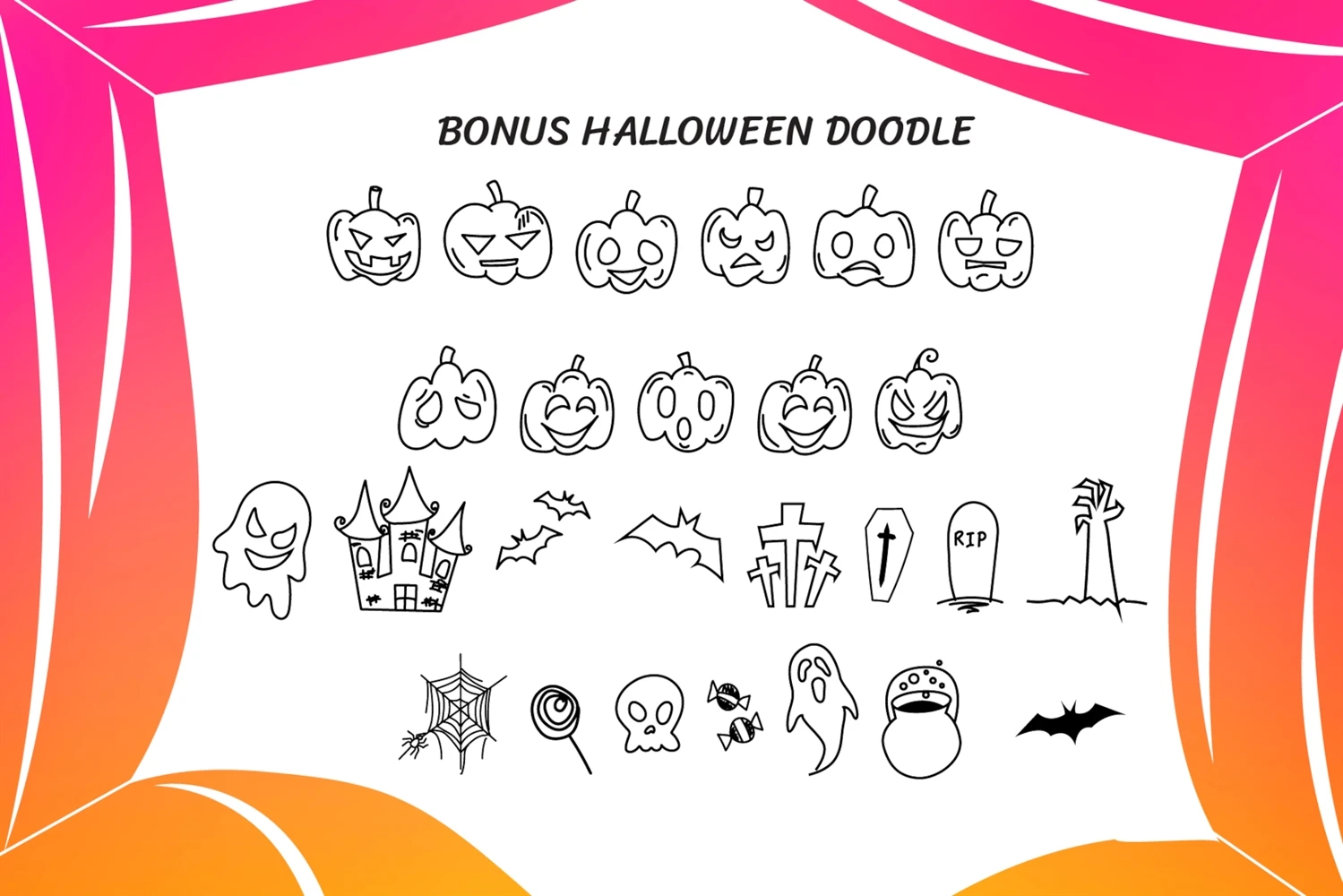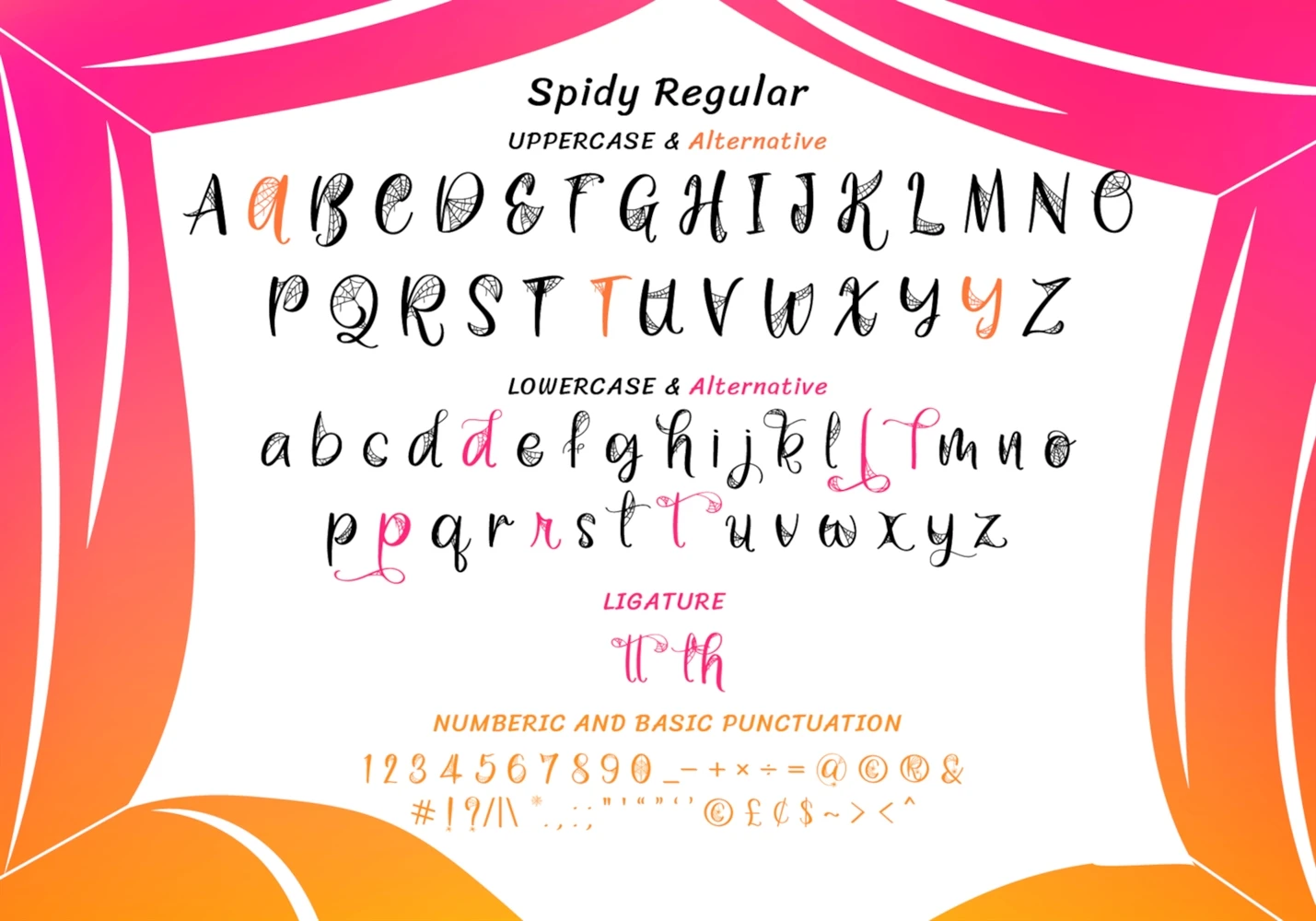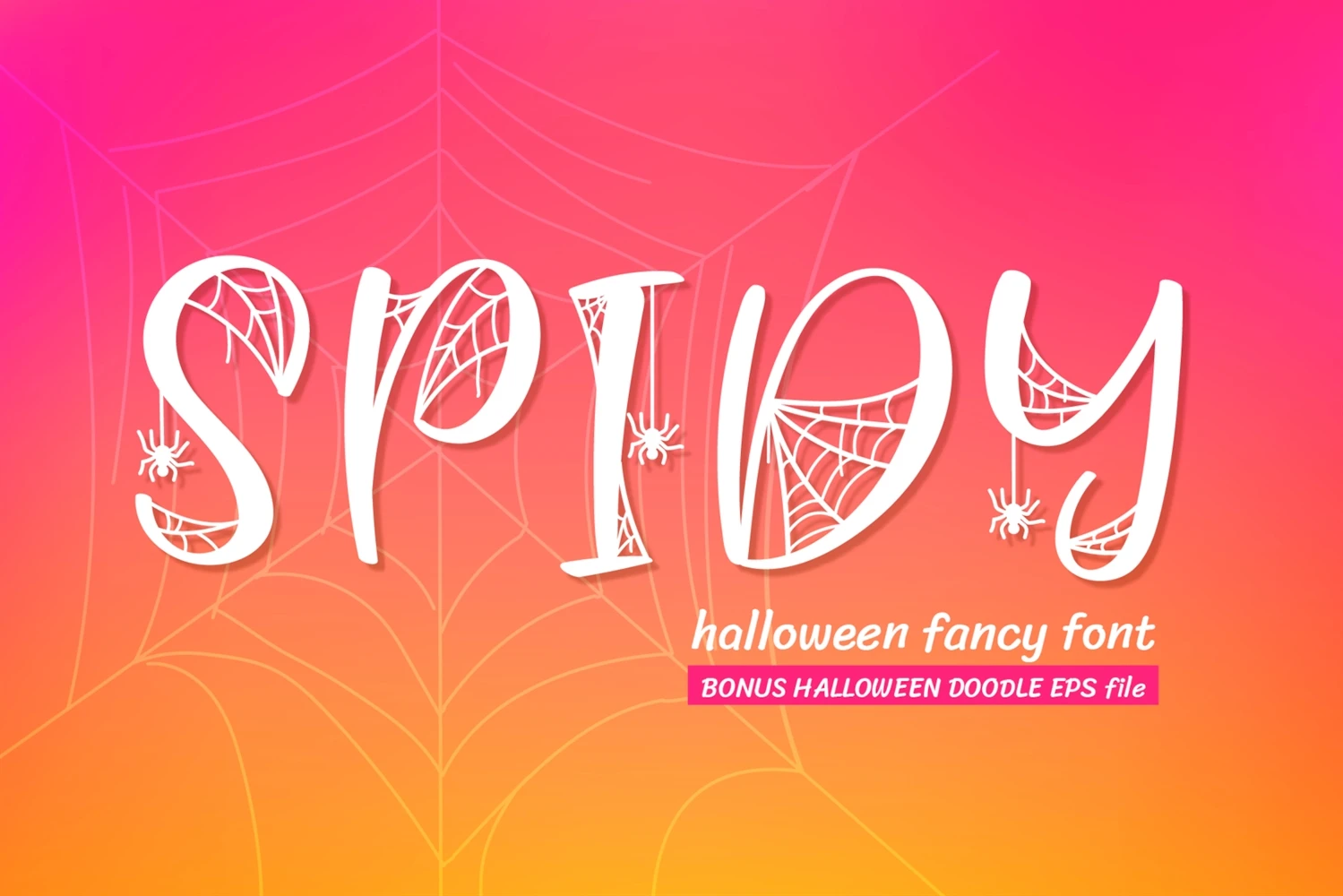
Spidy is a fun and uniquely shaped decorative font. It is ideal for Halloween designs or October parties. Add it confidently to your favorite creations and let yourself be amazed by the outcome generated.